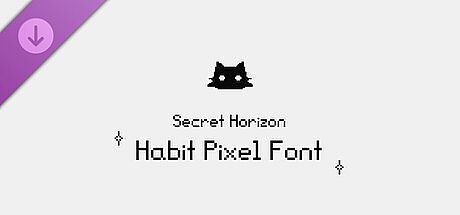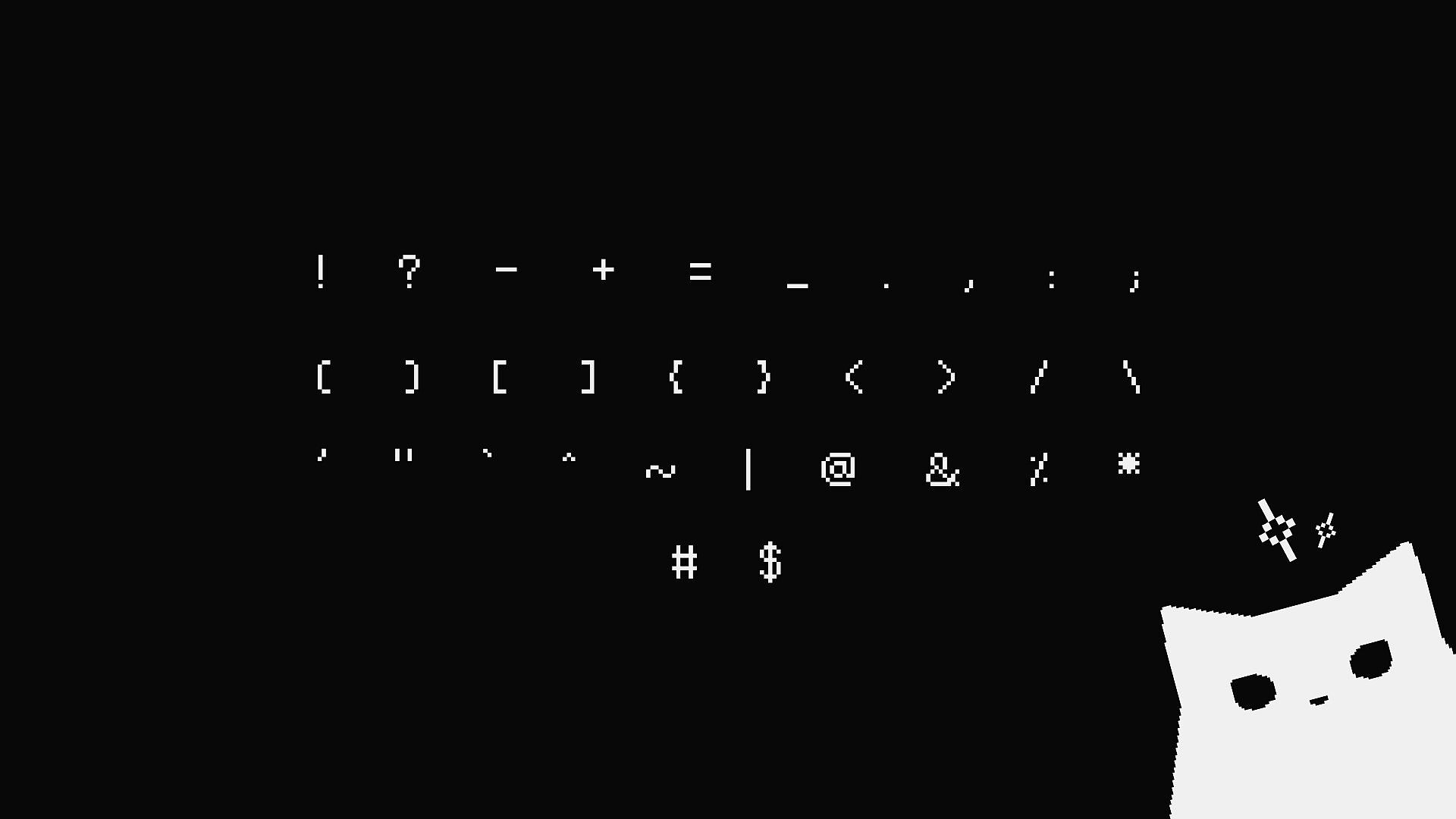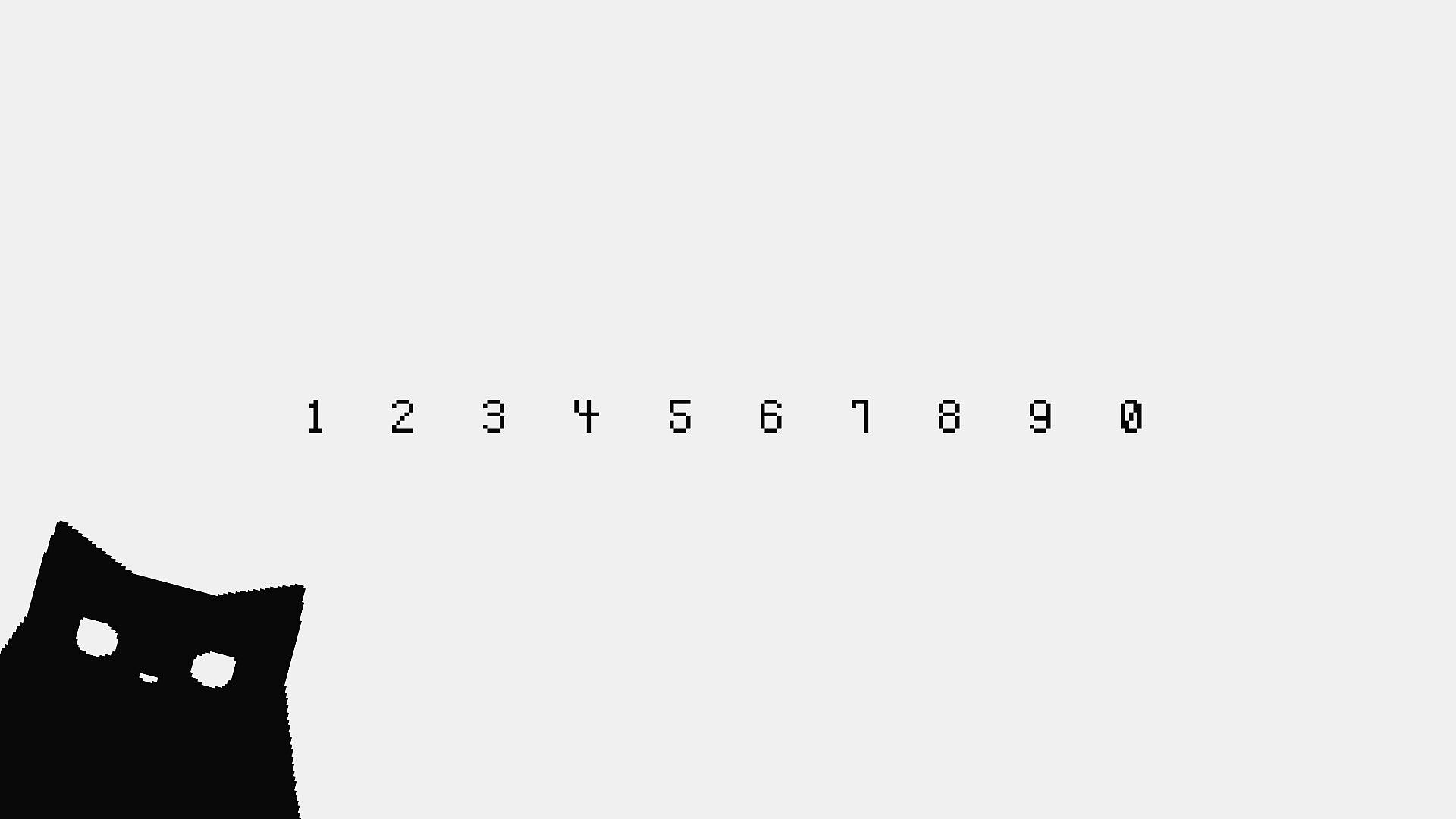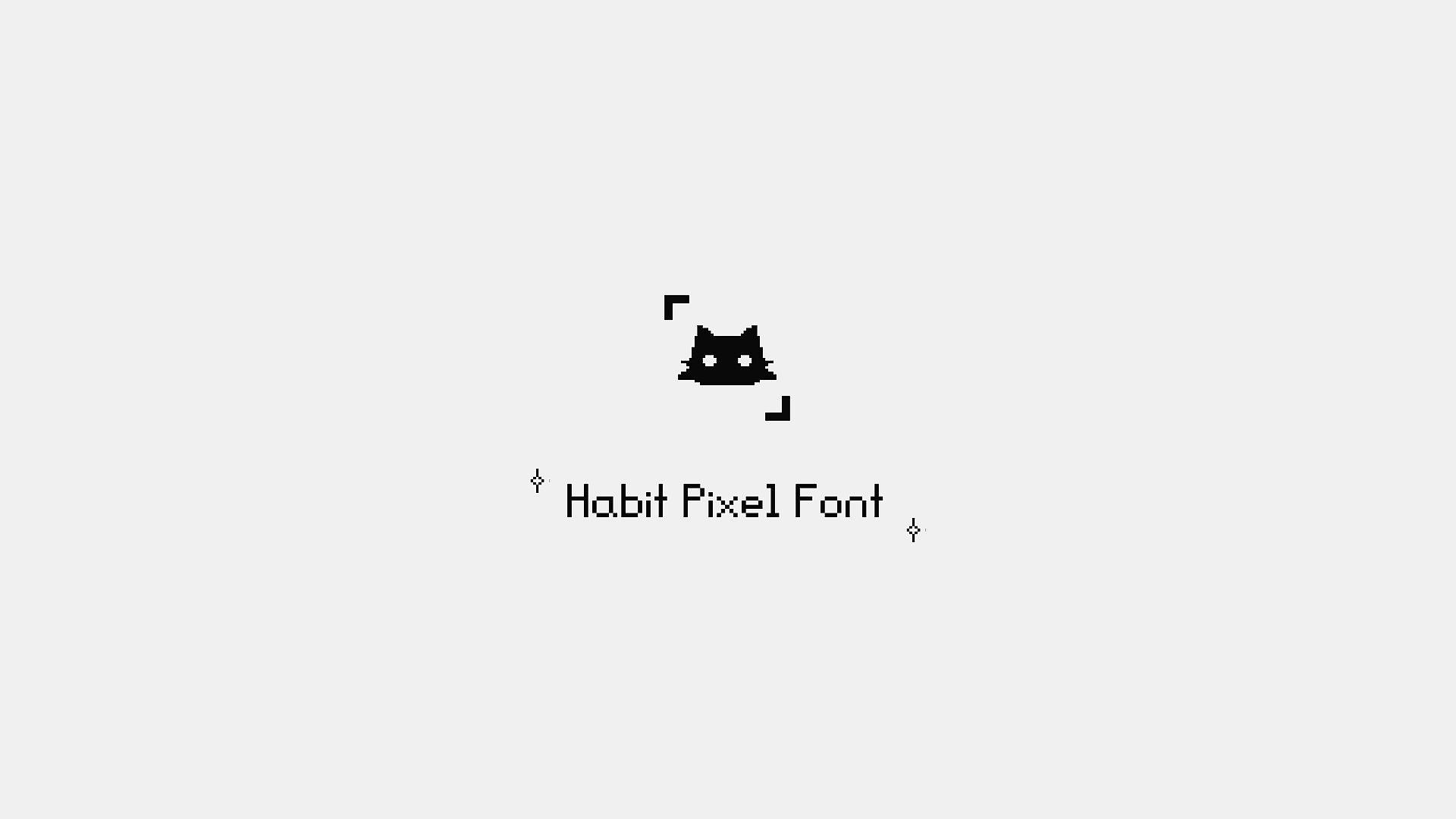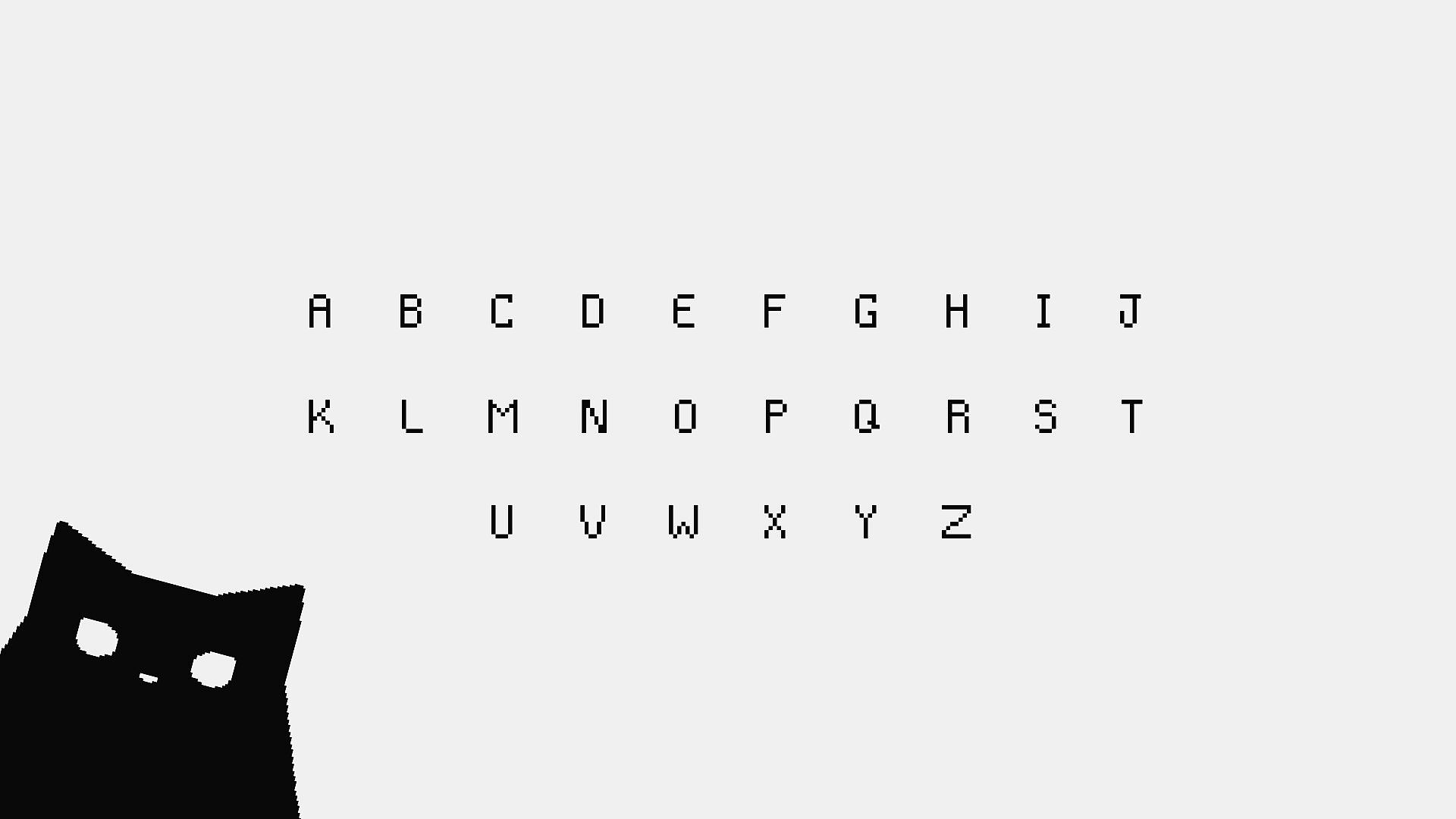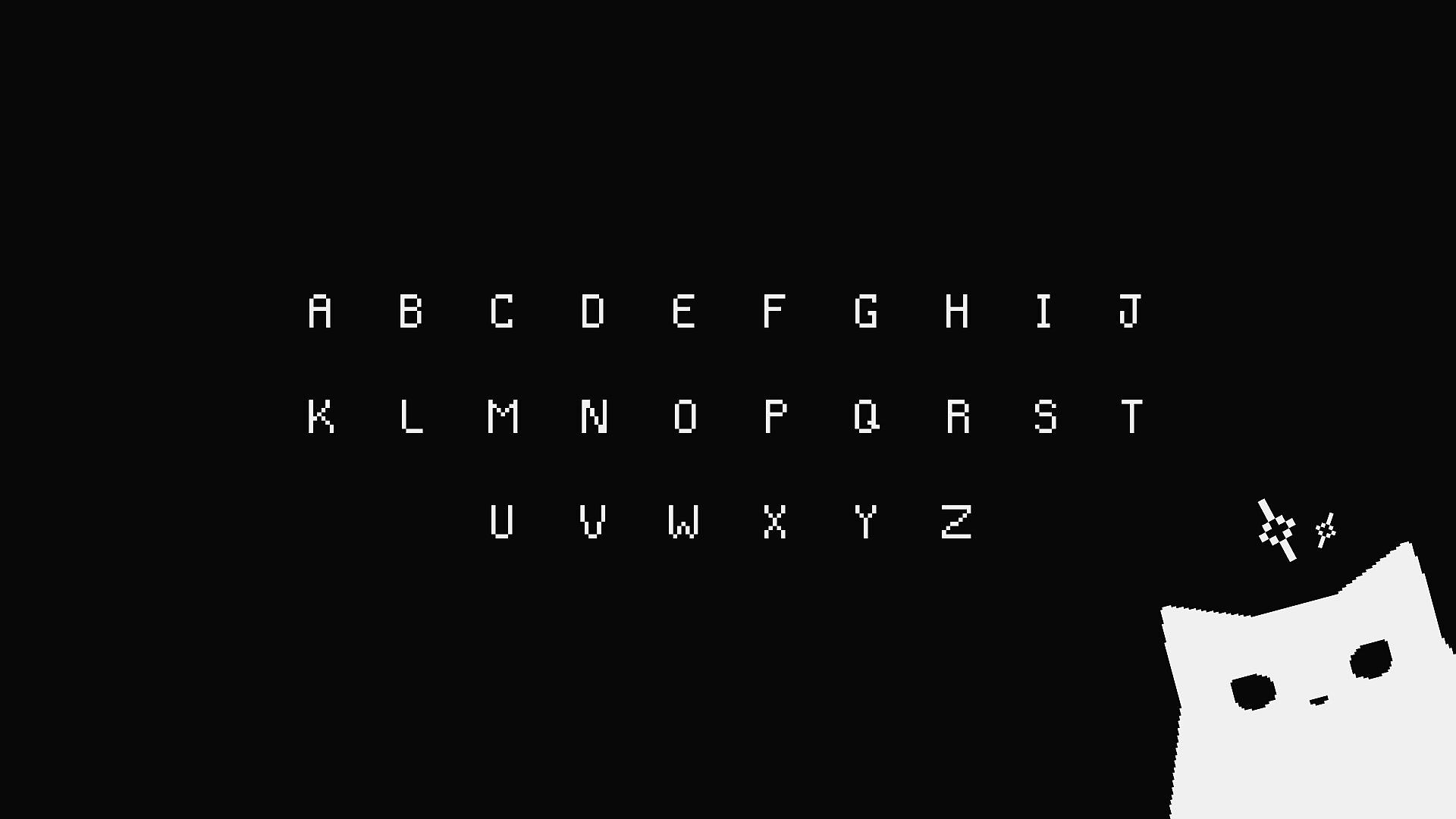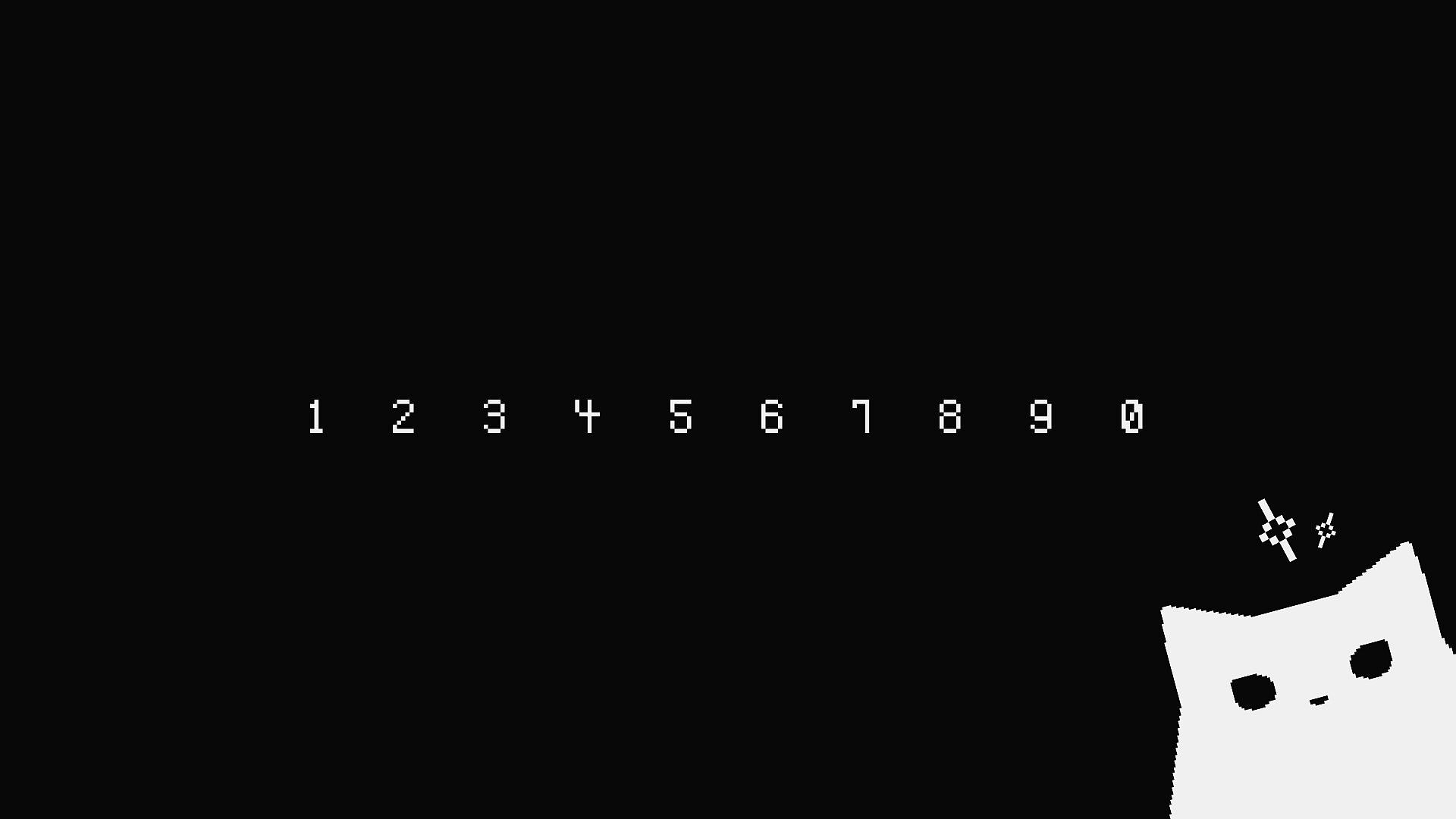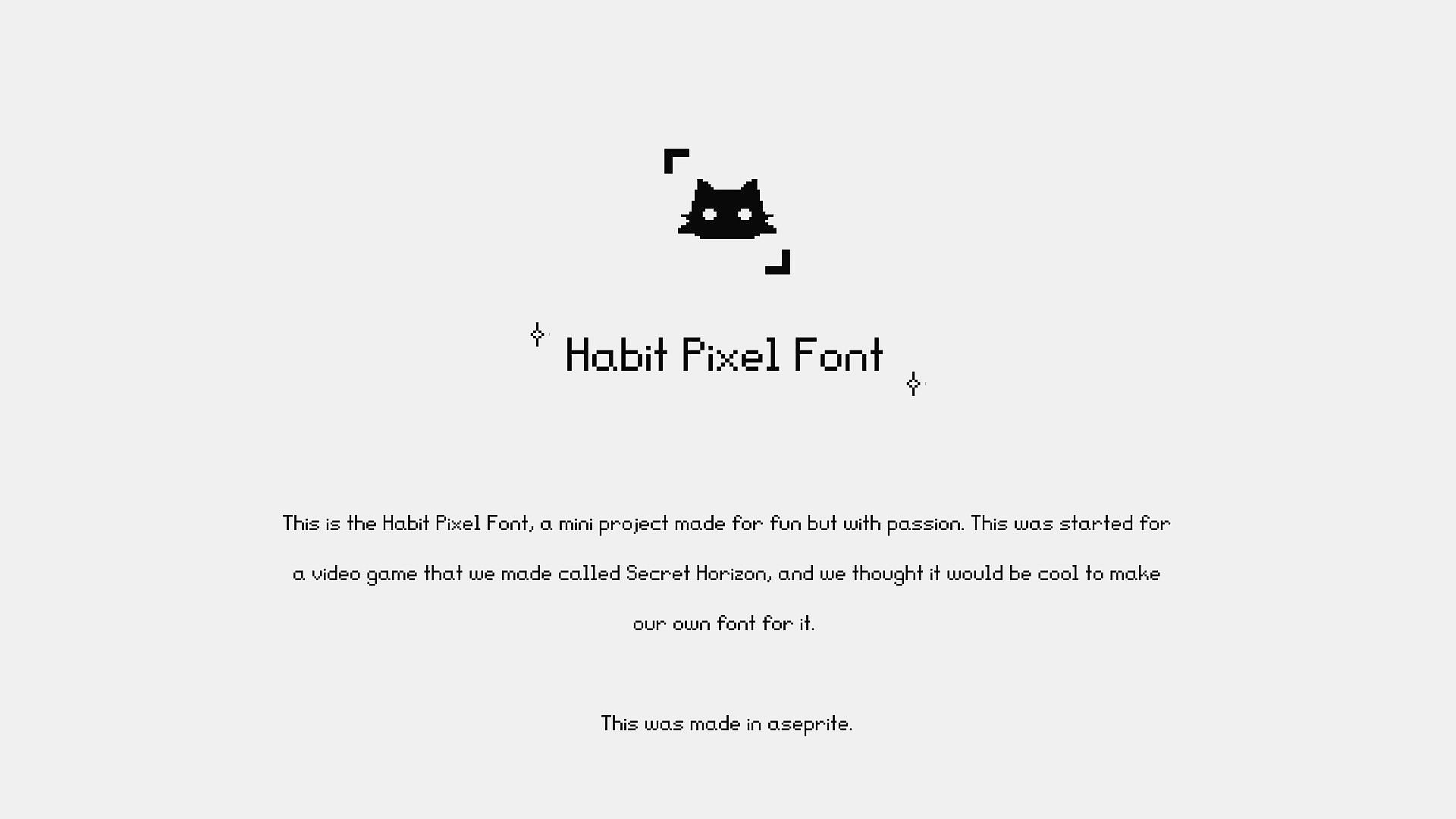
Secret Horizon Habit Pixel Font
This is the Habit Pixel Font, a mini project made for fun but with passion. This was started for a video game that we made called Secret Horizon, and we thought it would be cool to make our own font for it.
This is an originally made simple pixel font created in Aseprite.